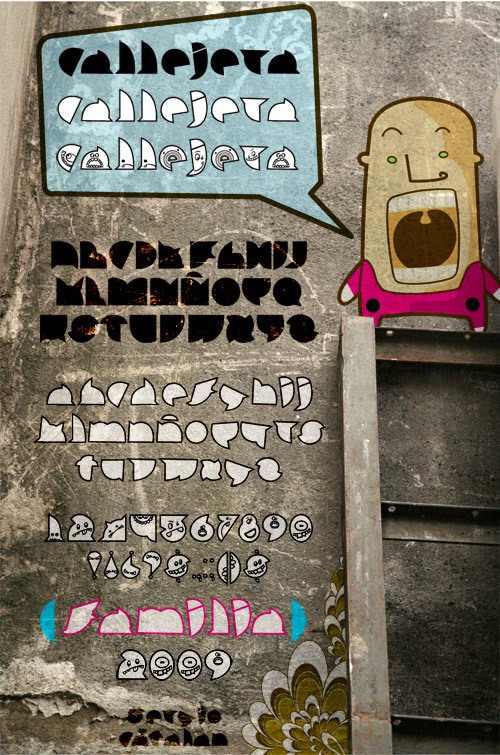
Callejera Filete by Sergio Catalan A. is a free geometric sign dingbat font built from broad arcs, sharp cutaways, and simplified emblem-like forms. Rounded silhouettes are interrupted by angled cuts and inset corners, creating a set that feels closer to hand-cut signage than polished technical symbols.
For event posters, these pieces can serve as graphic emblems, while game graphics can use them as tokens or interface symbols. They also suit merchandise and experimental editorial design, where the curved forms can become part of a larger pattern rather than ordinary lettering. The repeated wedge cuts connect the symbols with maps, diagrams, and pie-chart imagery, making them useful for information-themed illustration.
The font consists of three variants.